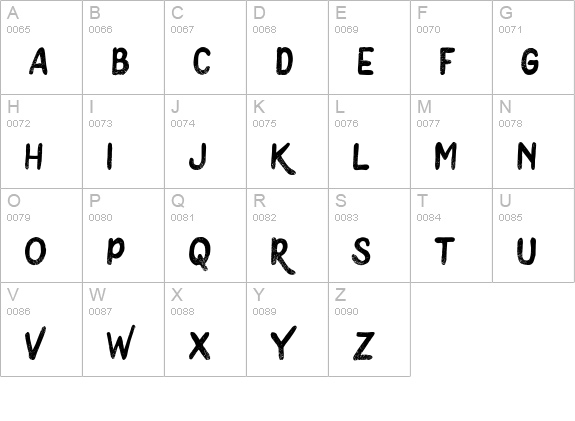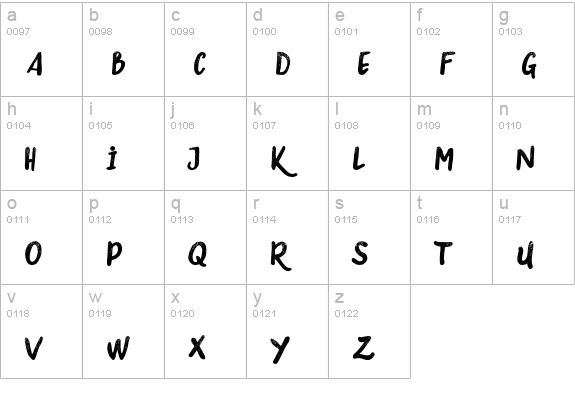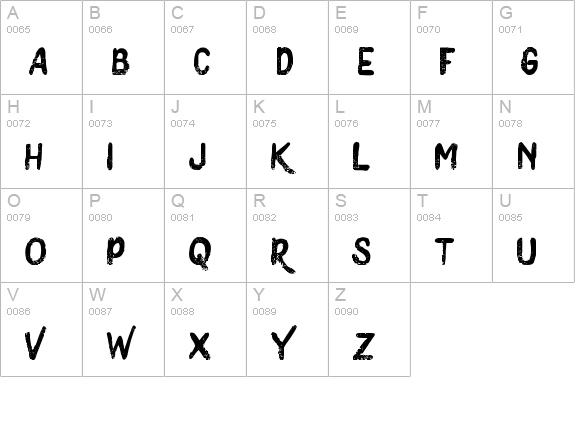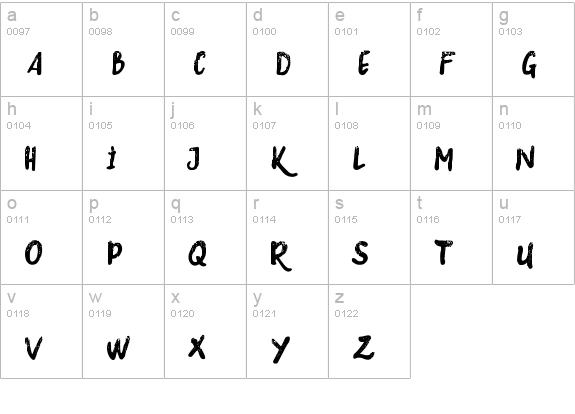
Amigirl Sans Swash Font Details
Amigirl Sans Swash is a stylish and elegant font that adds a touch of sophistication to any design project. With its unique swash details and smooth lines, this font exudes a sense of modernity and charm. Whether you're creating invitations, posters, or branding materials, Amigirl Sans Swash is sure to make your text stand out. The best part? This exquisite font is available for free download at FontsMarket.com. Simply visit the website, and you can start using Amigirl Sans Swash in your projects right away. Don't miss out on the opportunity to elevate your designs with this beautiful and versatile typeface. Download Amigirl Sans Swash today and let your creativity shine!